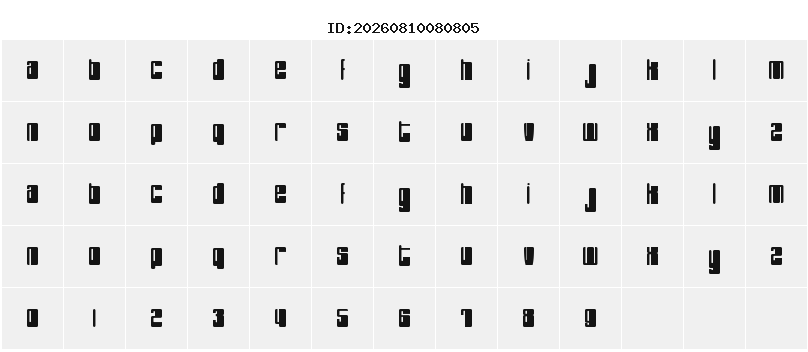
PHuture Preview
• Font Name: PHuture
• Font ID: PHuture:Version 1.00
• Full Font Name: PHuture
• Version: Version 1.00 September 30, 2008, initial release
• PostScript Name: PHuture
• Character Count: 231
• Designer: jbensch
About PHuture.ttf
PHuture.ttf is a modern, elegant sans-serif font designed for ultimate readability and visual harmony. Perfect for branding, headlines, web design, and print materials.